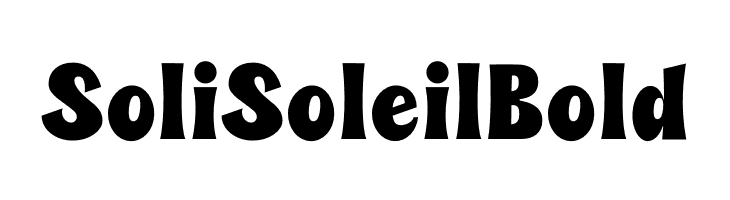
A bold, high-contrast font with ornate uppercase letters and elegant flourishes.
A bold, rounded font with a playful, retro vibe.
A bold, blocky font with a vintage military style.
An elegant, cursive font with ornate uppercase and smooth lowercase letters.
A modern, cursive font with elegant uppercase and bold lowercase letters.
A flowing, elegant script font with a natural handwriting style.
A playful, hand-drawn font with a casual and friendly style.
A modern, light, and italic sans-serif font with sleek lines.
A modern, geometric sans-serif font with balanced proportions.
A bold, heavy italic font with a modern and dynamic style.
A bold, modern font with thick strokes and a strong presence.
A modern, italic sans-serif font with clean lines and balanced spacing.
A sleek, modern thin italic font with elegant strokes and a sophisticated style.
A modern sans-serif font with geometric structure and uniform strokes.
A modern, italic sans-serif font with clean lines and a dynamic style.
A bold, modern font with thick strokes and uniform width, perfect for impactful designs.
A bold, modern sans-serif font with strong geometric shapes and clean lines.
A bold, italicized font with thick strokes and a modern, dynamic style.
A modern, semi-bold italic font with medium contrast and clean lines.
A sleek, modern hairline italic font with elegant, minimalistic design.
A bold, italic typeface with a modern and dynamic style.
A modern, geometric font with thin strokes and balanced spacing.
Bold, italicized font with strong strokes and a modern, dynamic style.